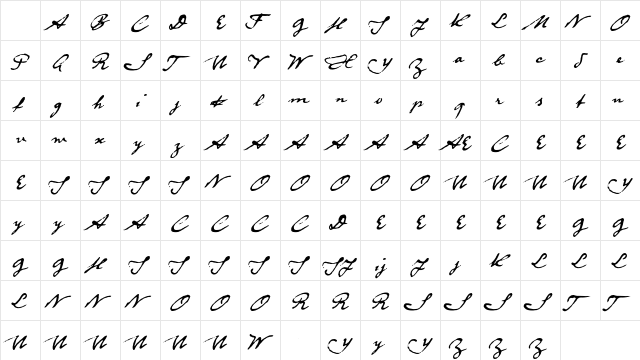
Complete Diesel Rudolf reduced glyph index. Displaying only characters natively supported by Diesel Rudolf reduced font.
Diesel Rudolf is a composed and adaptable typeface that performs quietly and consistently across a wide range of design contexts.
Who designed the Diesel Rudolf reduced font?
This font was published by Ingo Zimmermann, ingoFonts Augsburg. Check the technical specs section for copyright and designer details.